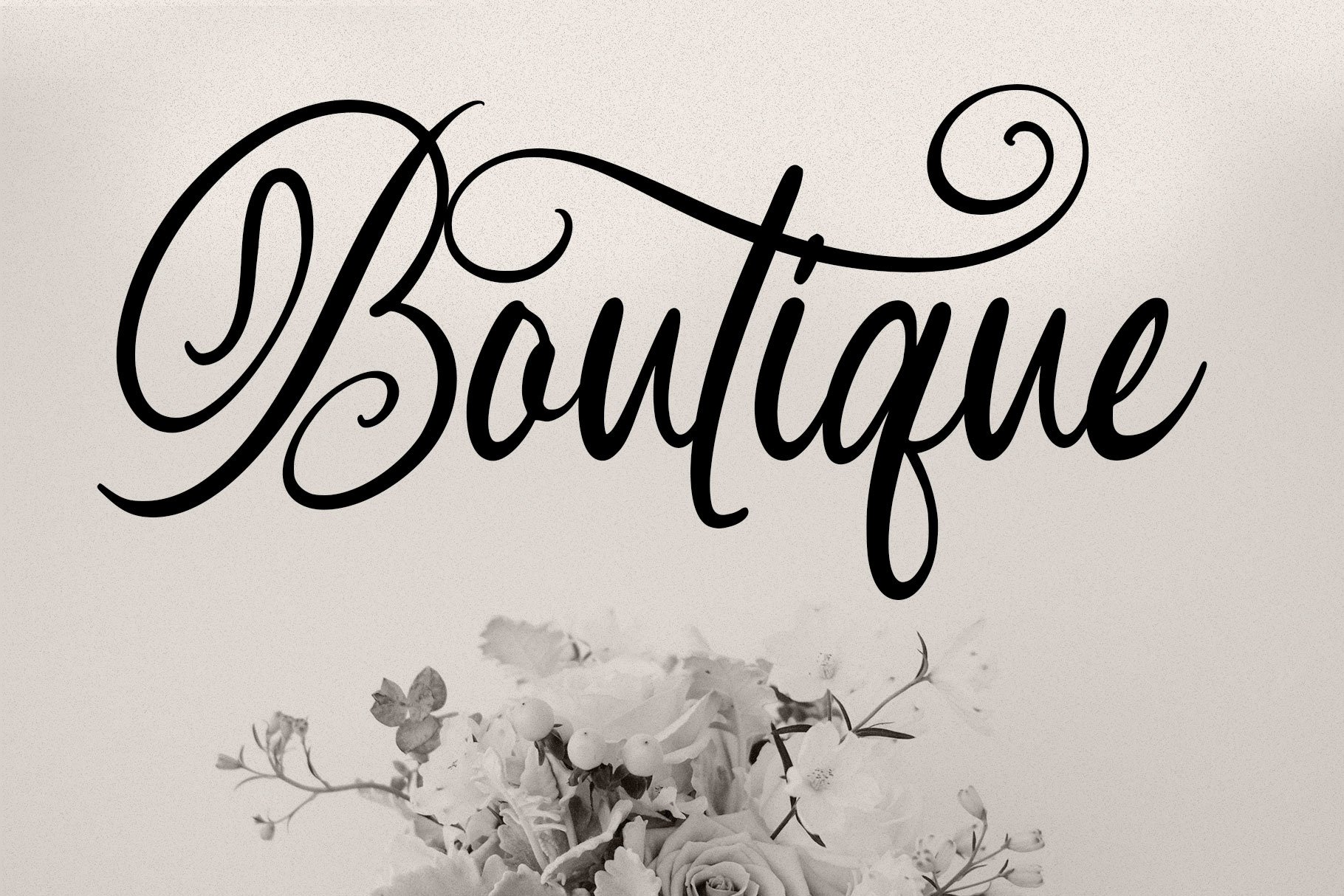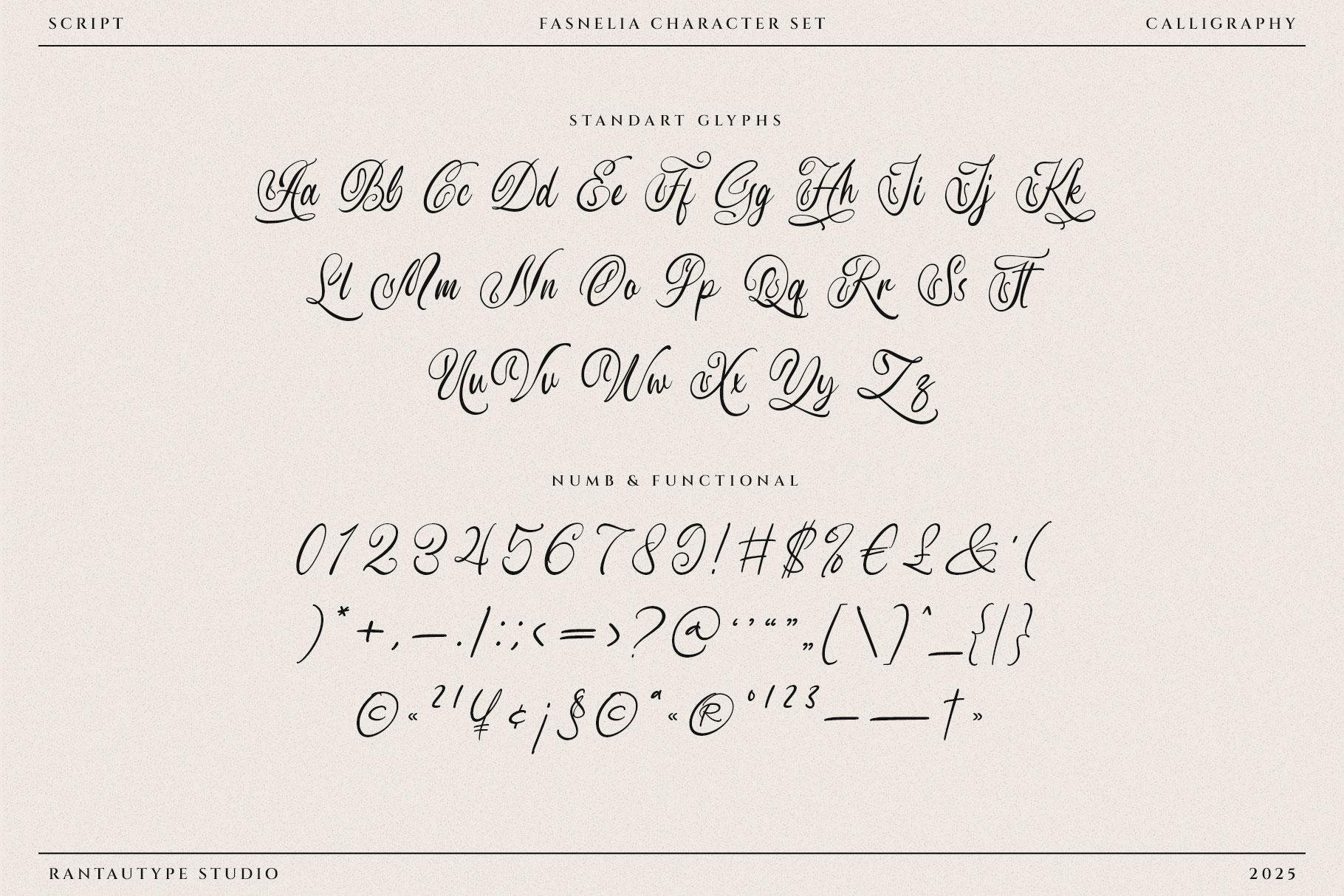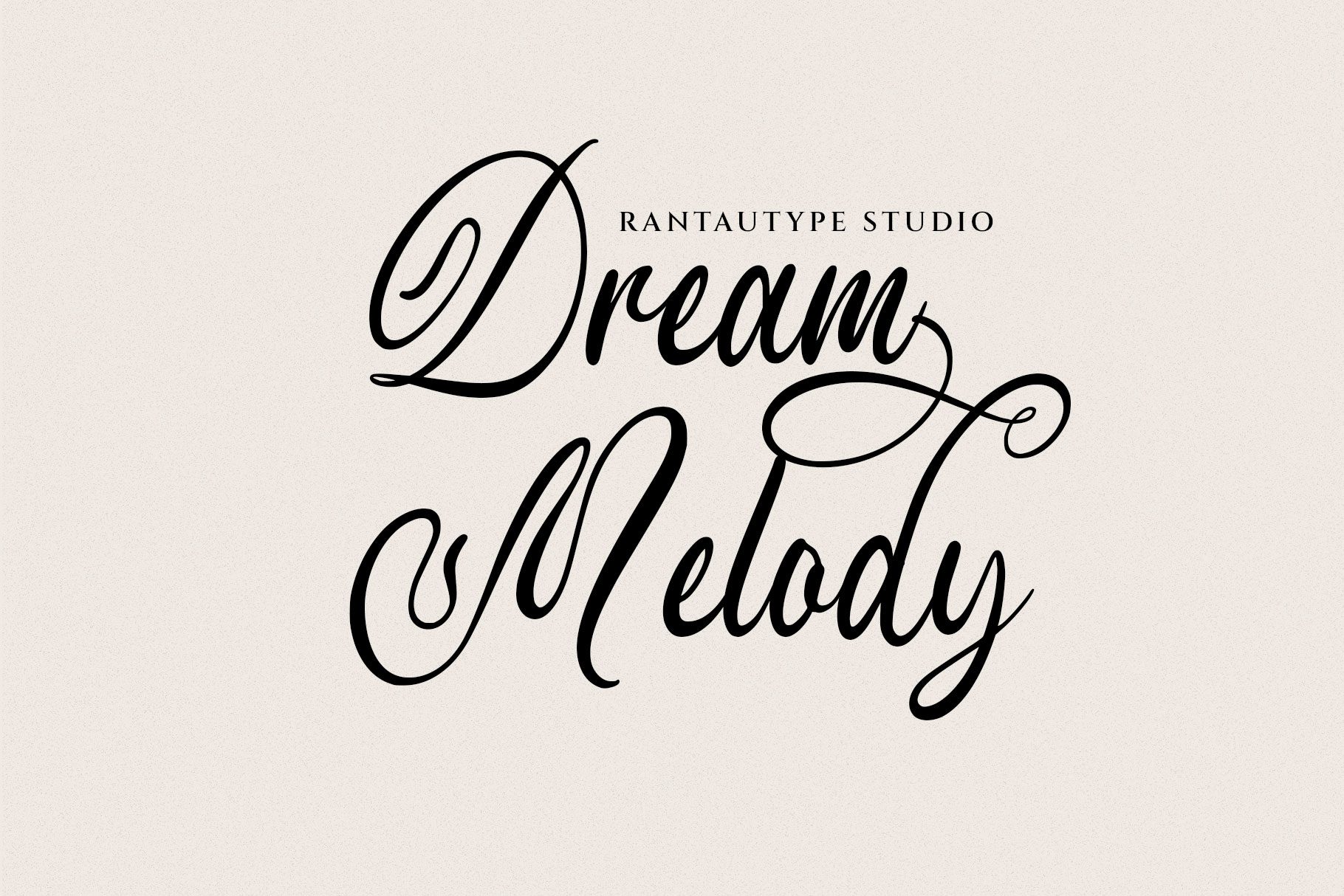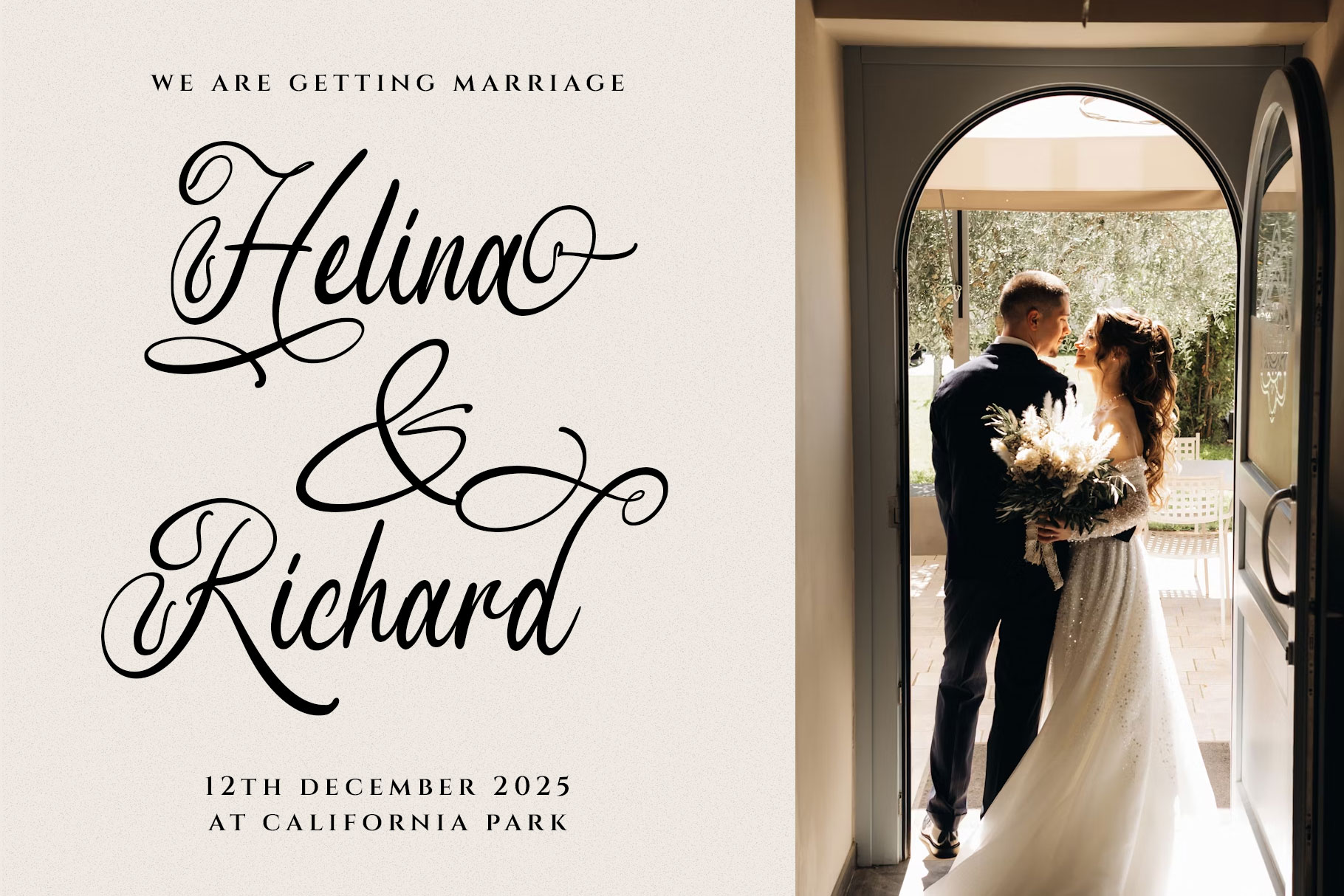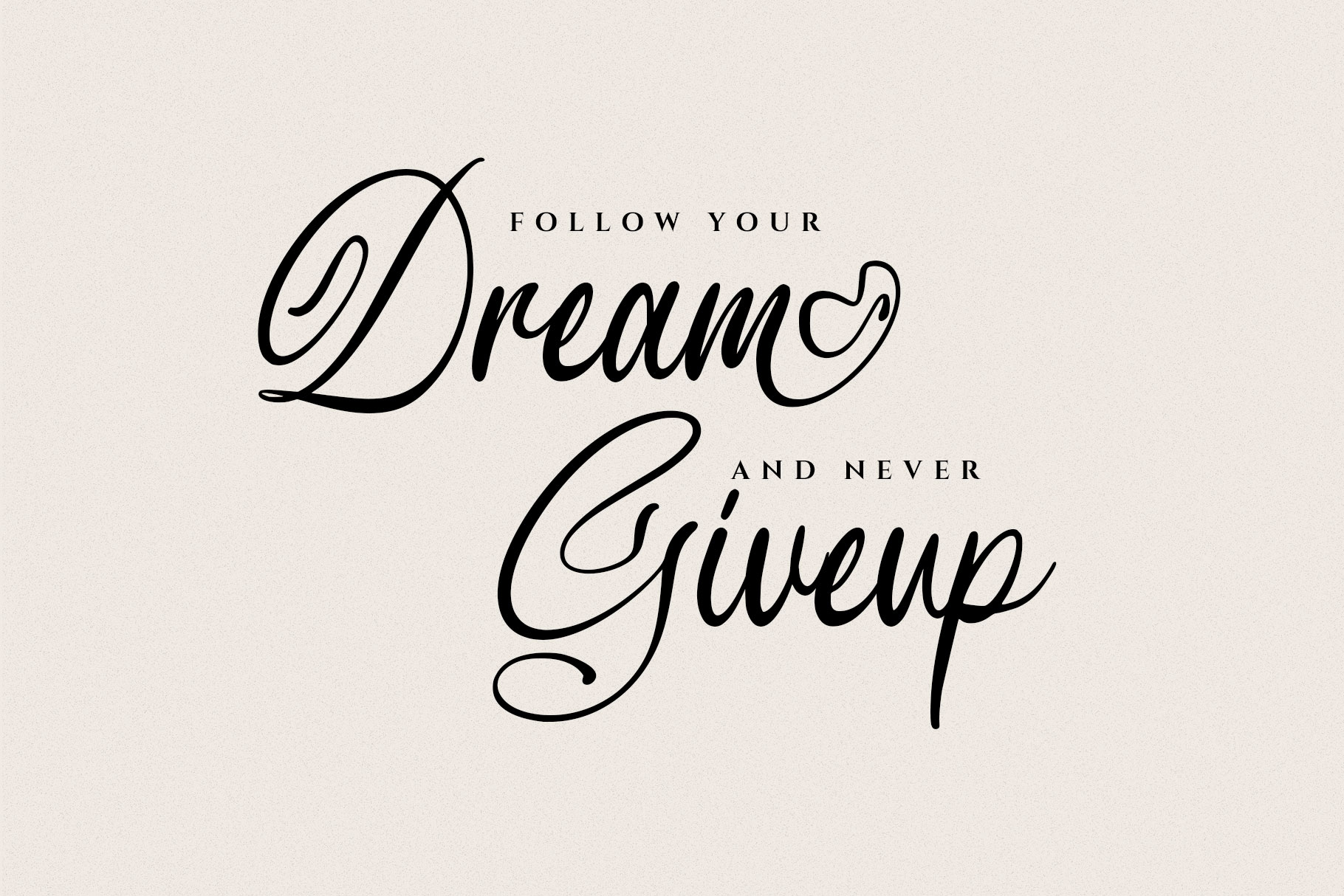
Fasnelia is calligraphy font embodies the timeless beauty of handwritten art, blending elegance and expressive flow in every stroke. Fasnelia is a perfectly choice for any creative endeavor, creating, modern, lifestyle design such as logotype, title, cover, branding, invitations, wedding designs, display and magazine, social media posts, advertisements, printed quotes, product packaging, corporate brand, product designs, labels, photography, watermarks, special events and any other project with modern touch.